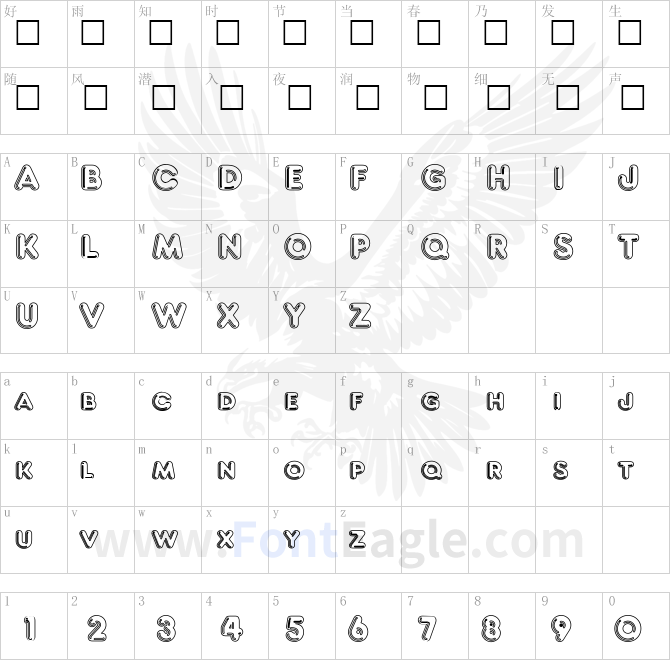
Frankfurt-Hollow is a great font, widely used in graphic design, single-page menu design, poster design and other fields, and is deeply loved by designers.Frankfurt-Hollow download.